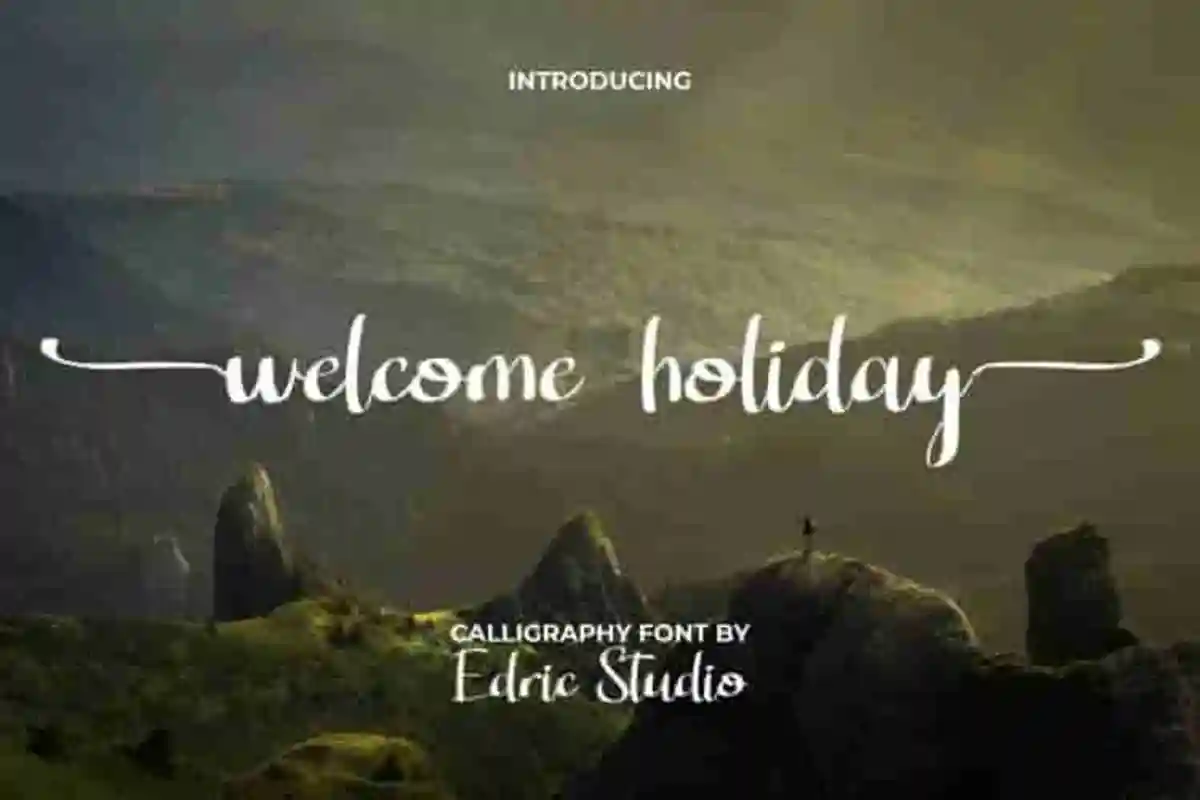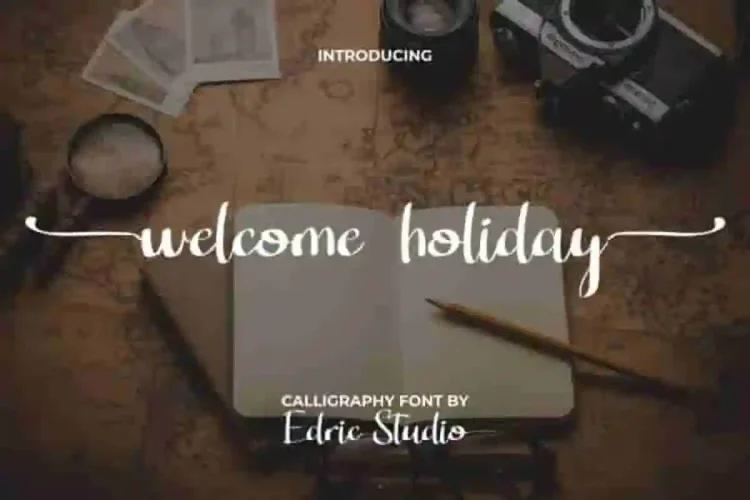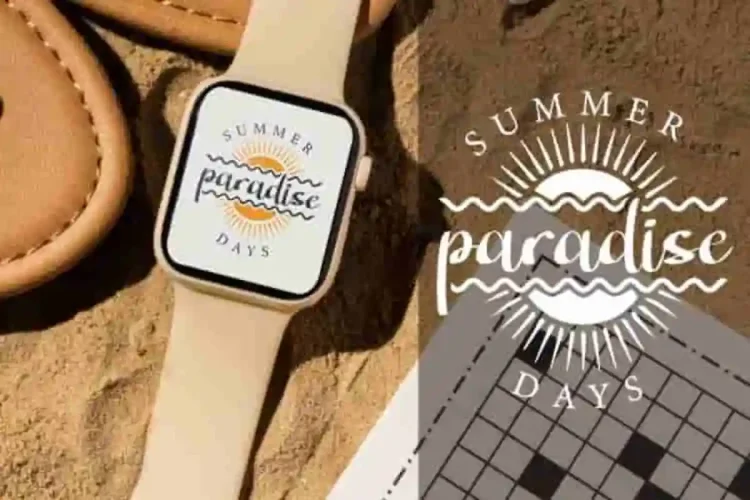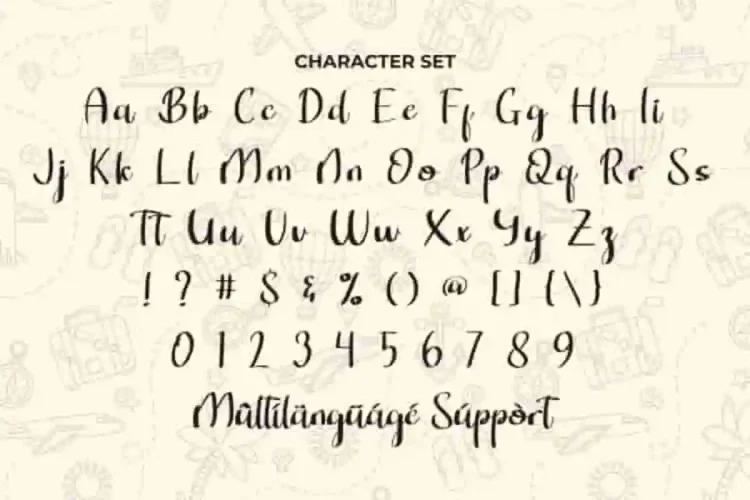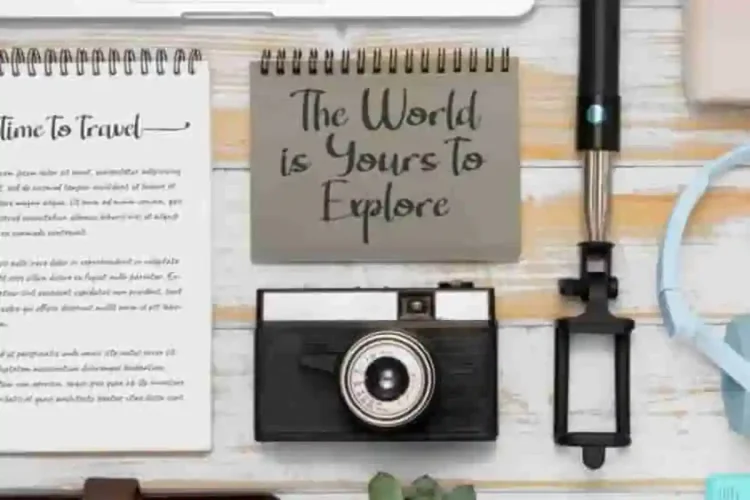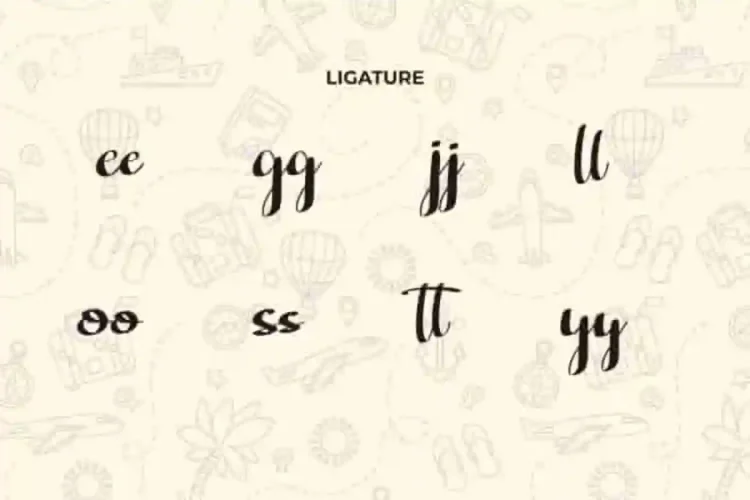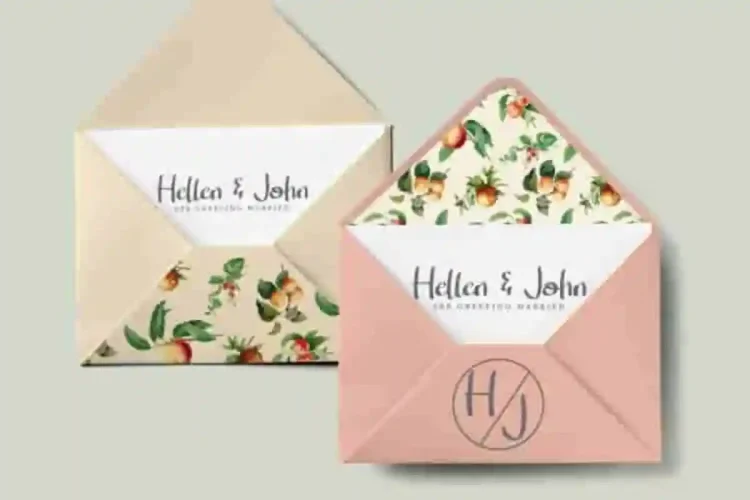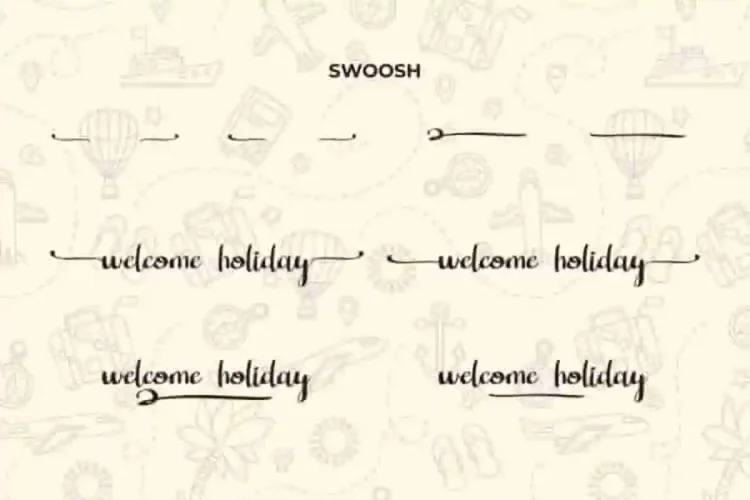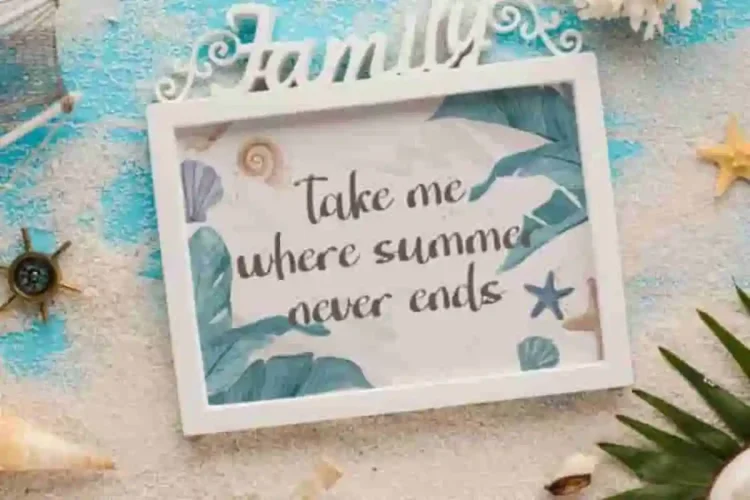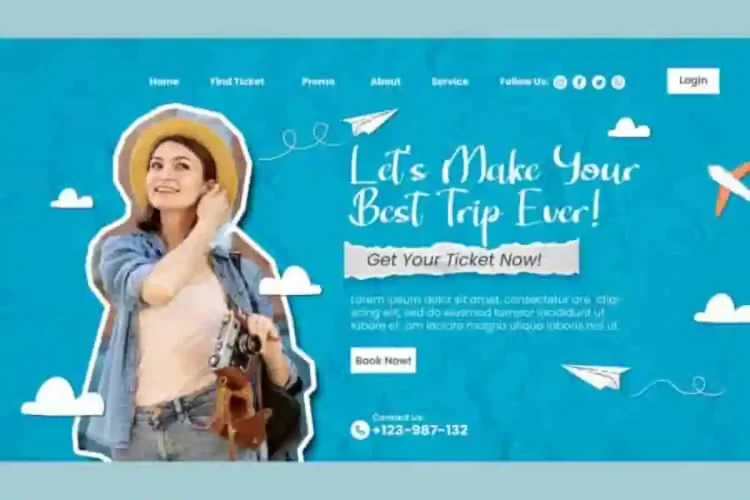
Welcome Holiday Calligraphy Font is a uniquely sleek calligraphy script font with a fresh casual look. Its smaller lowercase letters add a charming balance, making it stand out from ordinary script fonts.
Welcome Holiday Calligraphy Font comes with a full set of Uppercase and Lowercase Basic Characters, Number, a large range of Punctuation and Symbol. It has a stunning characters set, perfectly managed with well spaced and kerning.
Welcome Holiday Calligraphy Font is a playful typeface with unique decoration in each character. Ready to use both on Windows machine or Mac with simple installations with multilingual characters supported. It’s tested to work well in the Adobe Apps (Illustrator, Adobe InDesign, Adobe Photoshop) even work on Microsoft Word. PUA Encode Characters means you can access all characters easily – Fully accessible without additional design software.